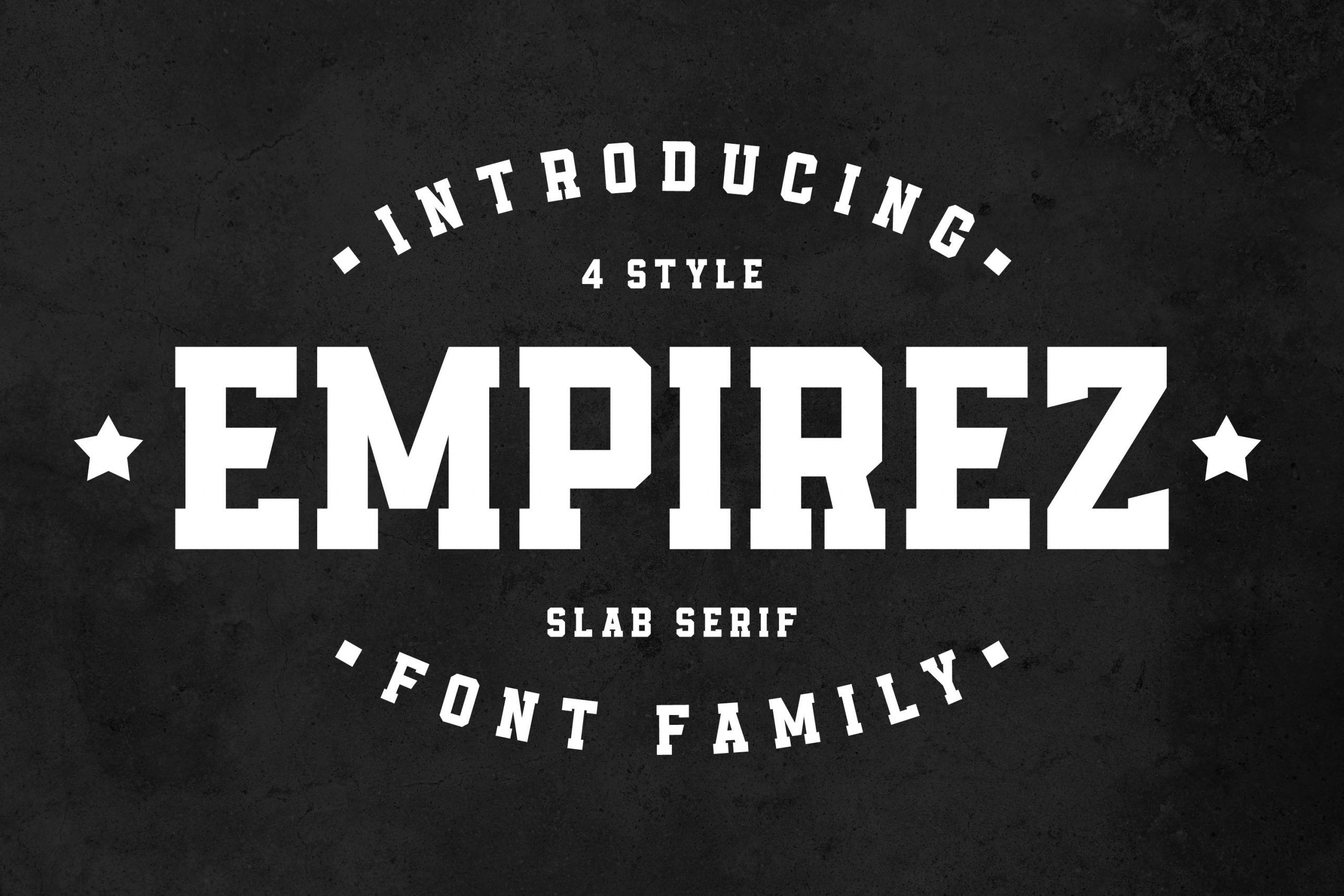
Empirez – Slab Serif Font
Empirez – Slab Serif Font is a clean and thoughtfully built typeface that works seamlessly for both professional branding and everyday creative uses. Empirez – Slab Serif Family with 4 Style is an adaptation and progression Empirez – Slab Serif Family, giving the user some cool options when creating artwork. This font perfect for both print and digital, in headlines for editorial, posters, banners, websites, apparel, packaging, logos or magazines.